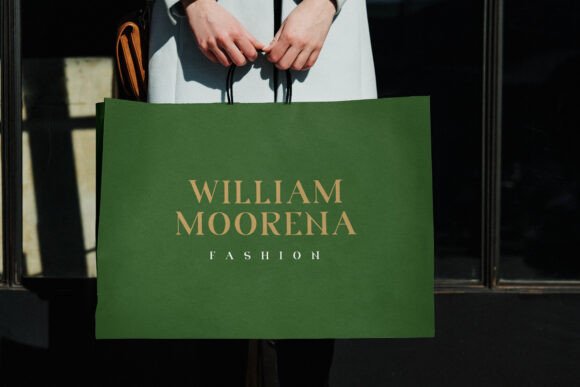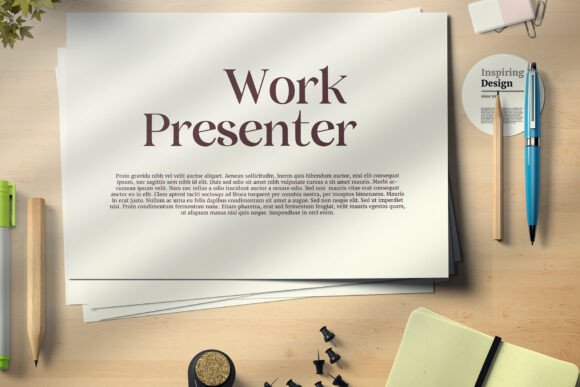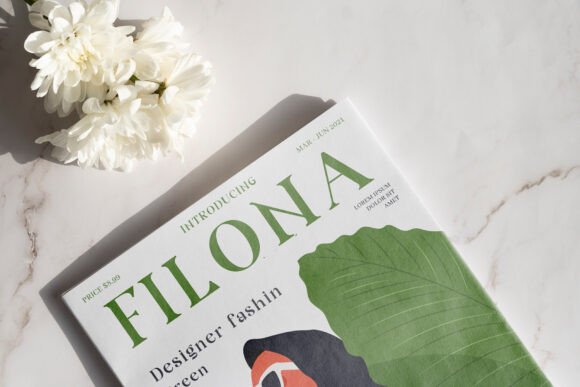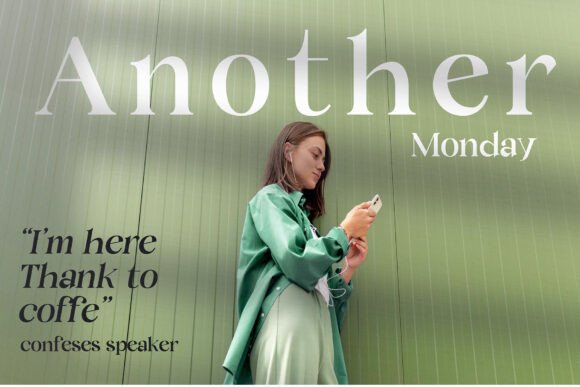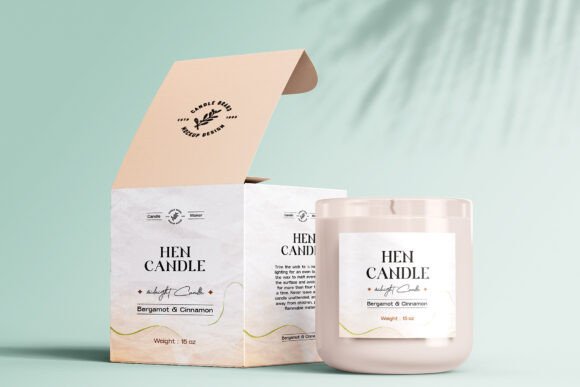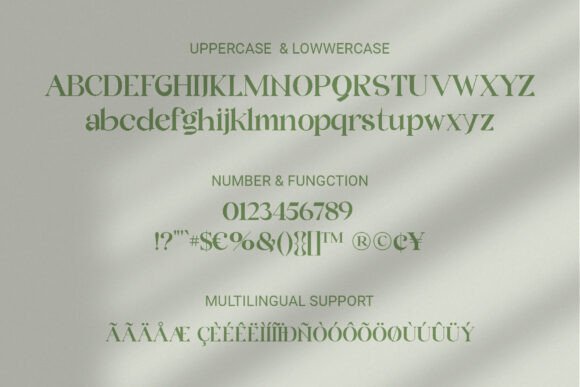
Introduction to Quicle Font
Quicle is a classy, modern serif font with a soft yet confident presence.
Designed with elegant curves and subtle contrast, itโ€™s perfect for branding, editorial layouts, product packaging, and sophisticated social media graphics Its balance of sharp serifs and graceful details makes Quicle ideal for projects that need both style and readability.
Key Features of Quicle Font
Why Choose Quicle Font?
Quicle Font offers exceptional quality and versatility, making it a valuable addition to your design toolkit. Whether you’re creating for personal projects or commercial use, Quicle Font delivers professional results.